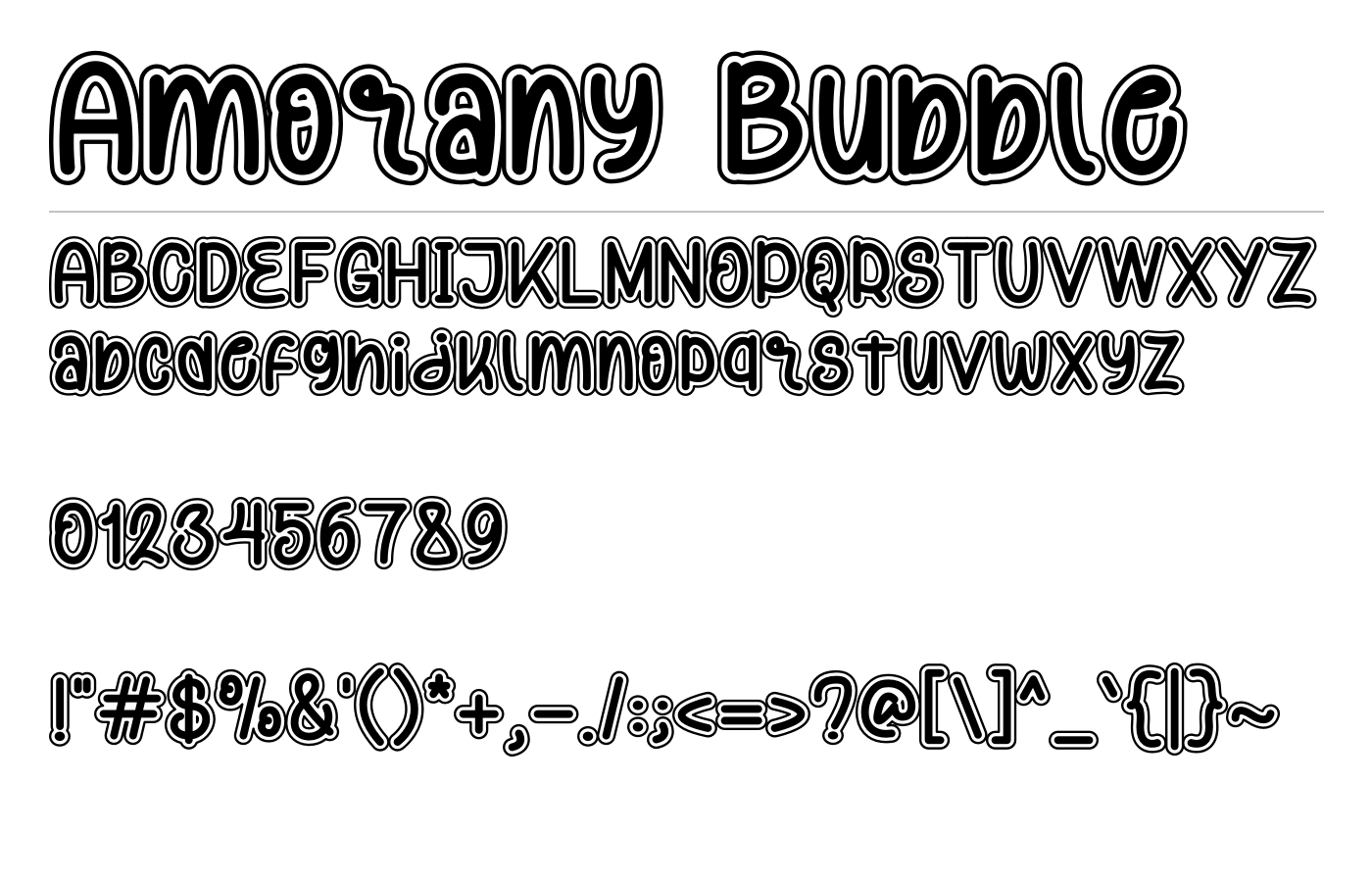
Amorany Bubble is a playful, bold sans serif font characterized by its rounded, bubble-like letterforms with a thick outline that gives it a fun and cheerful vibe. The font features a uniform weight with medium x-height and soft, organic curves, making it ideal for casual and youthful designs. Perfect for logos, children's products, posters, and informal branding, Amorany Bubble adds a lively, friendly touch wherever it’s used.
Amorany Bubble Font
About Amorany Bubble Font